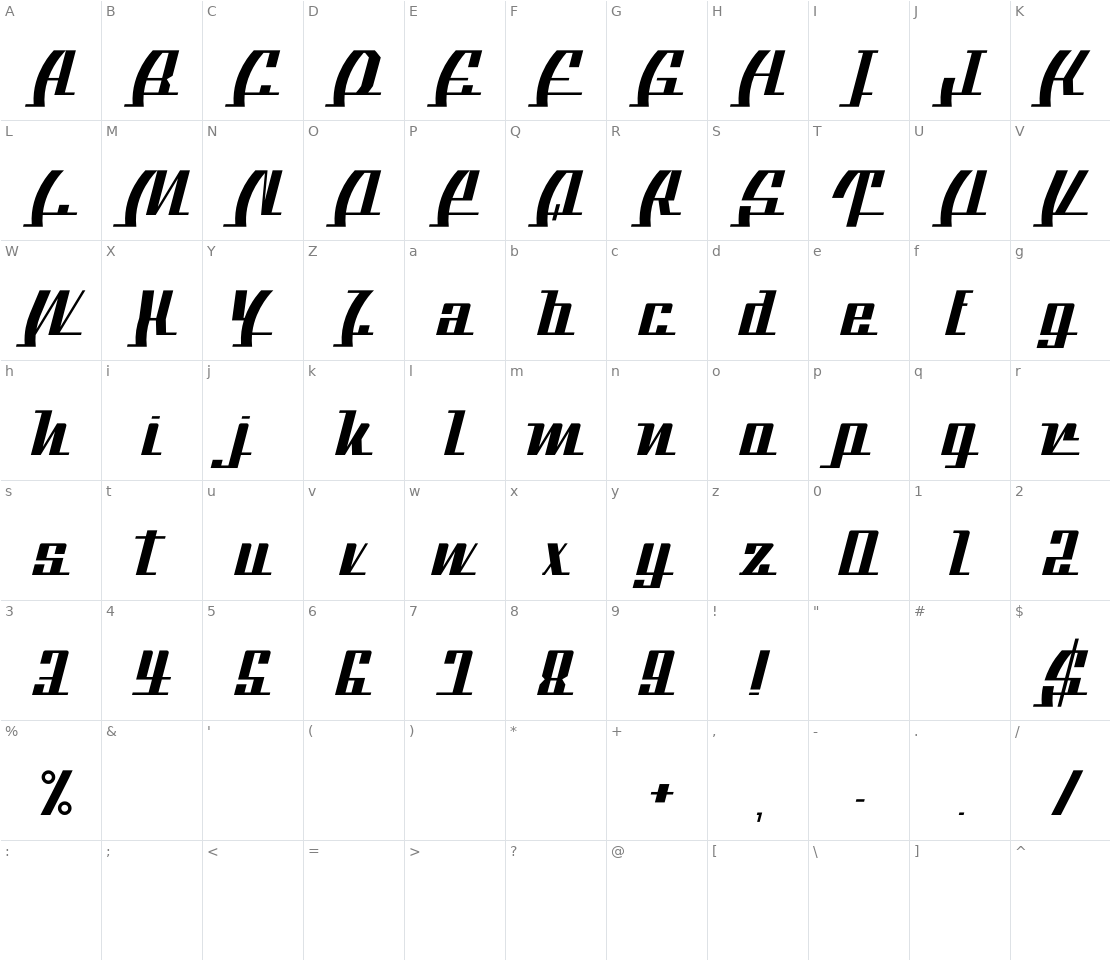
BTX The Bee Line
BTX The Bee Line is a bold, angular display face from Betwixt Designs with an art deco sensibility running through its stylized letterforms. The italic lean and sharp geometric angles give it a sense of speed and glamour, recalling the streamlined aesthetics of 1920s and '30s poster lettering. Best reserved for headlines and decorative use where its strong personality can carry the moment.